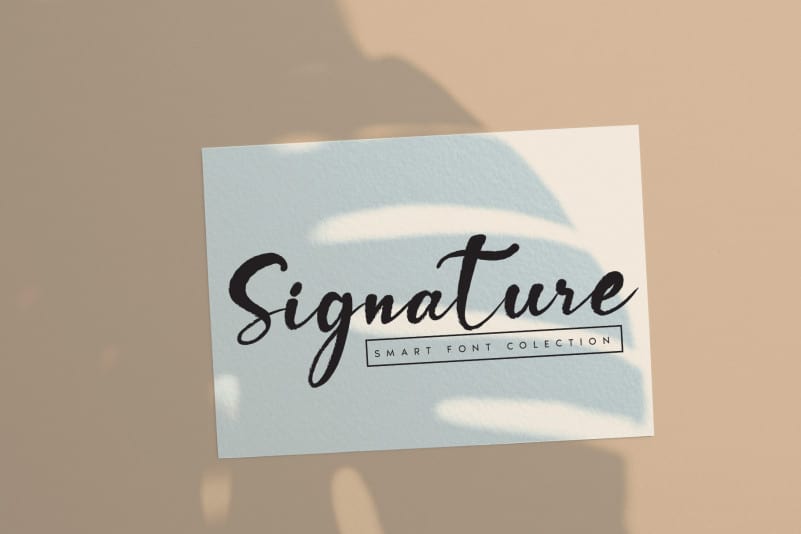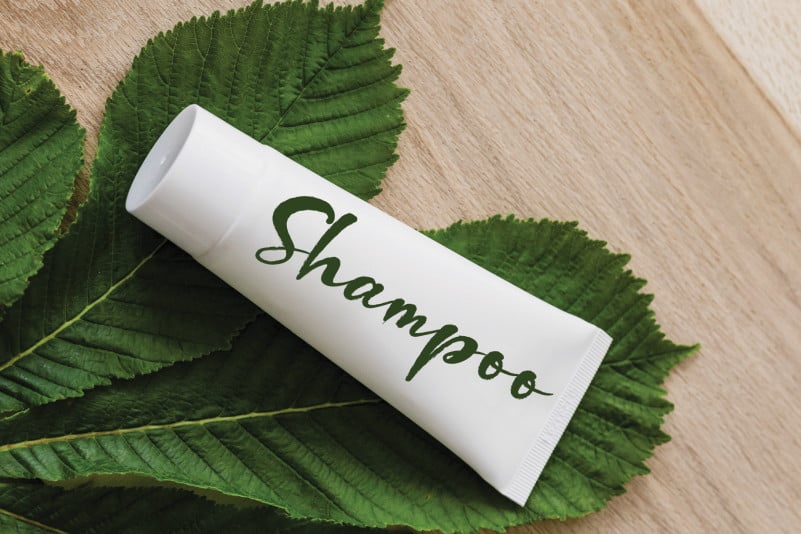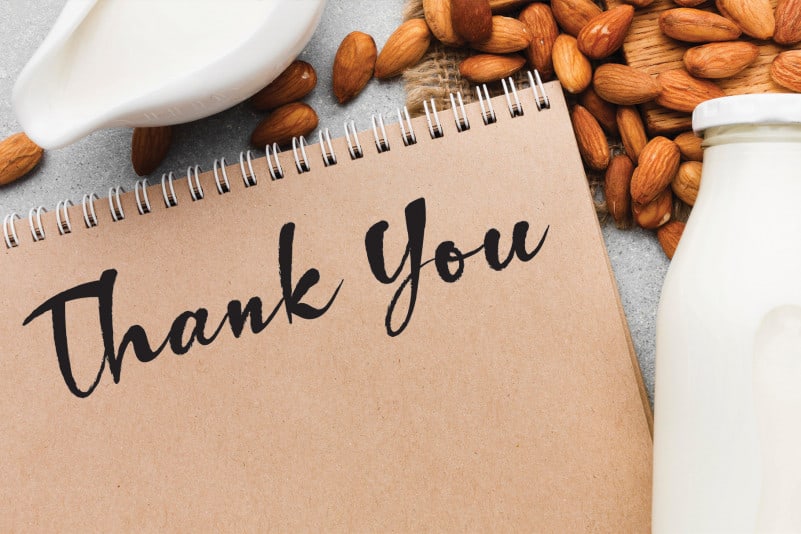
Hydrangea Flower Script Font
Hydrangea Flower Script Font is a classy and stylish handwritten font. Delicate and flowing, this font will easily become you top choice, no matter the design!